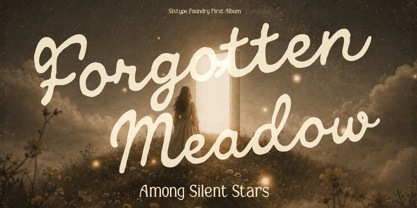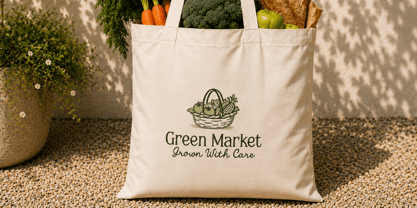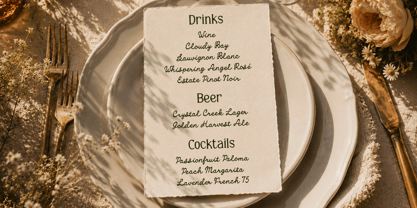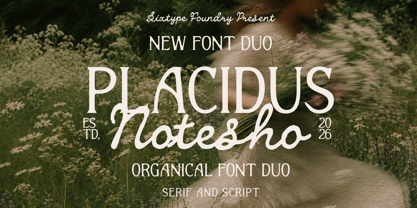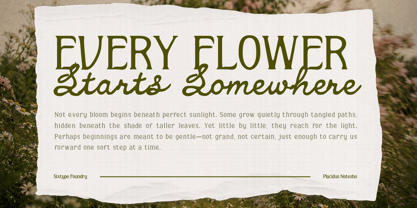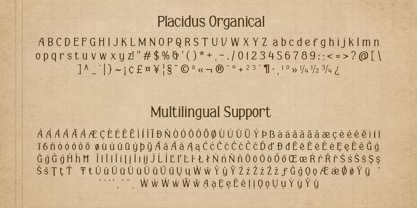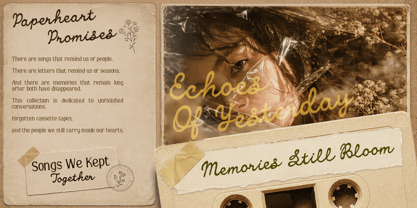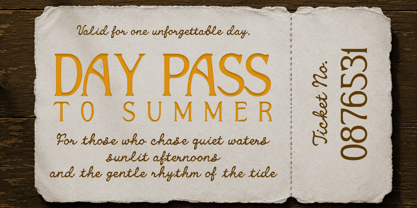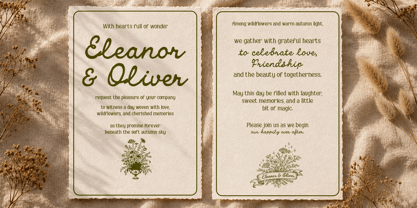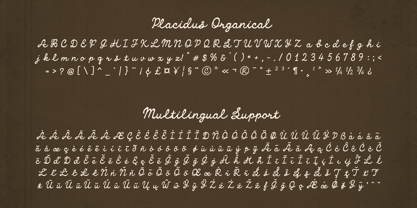
Placidus Notesho
Die Schriftfamilie Placidus Notesho entworfen und von Sixtype Foundry veröffentlicht. Placidus Notesho enthält 3 Stile und Familienpaketoptionen. Mehr über diese Familie
Placidus Notesho is a beautifully crafted font duo that combines an elegant organic serif with a flowing handwritten script, creating a timeless pairing ideal for refined and heartfelt designs. Drawing inspiration from nature, vintage stationery, and slow-living aesthetics, this versatile duo merges graceful letterforms with the warmth of handwriting to achieve an authentic and sophisticated appearance. Perfect for wedding invitations, branding, editorial layouts, book covers, packaging, logos, product labels, greeting cards, social media, and lifestyle projects, Placidus Notesho effortlessly infuses charm and personality into every composition. Whether used together for striking contrast or individually for a more subtle expression, this font duo provides endless creative possibilities for elegant and memorable designs.
Placidus Notesho